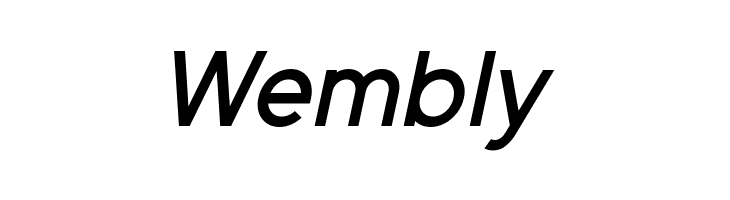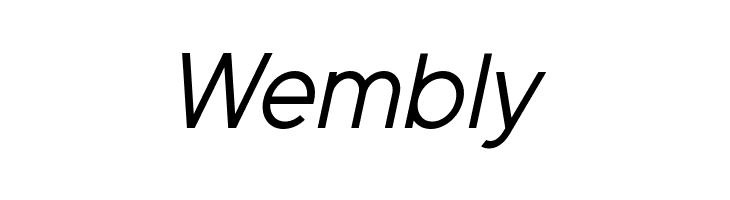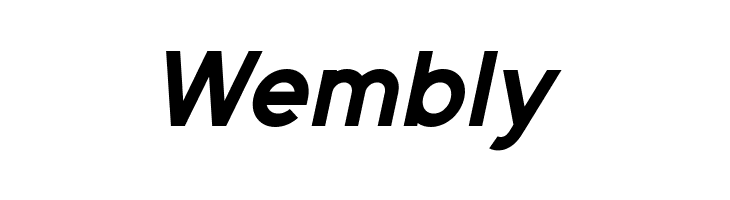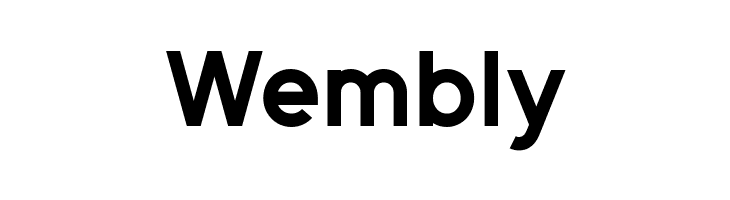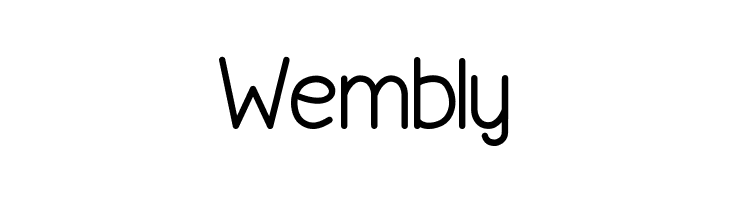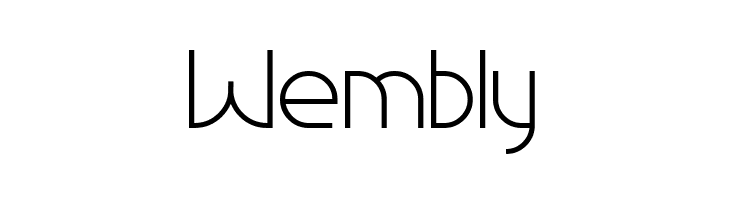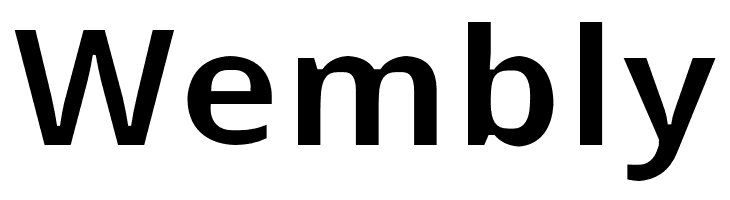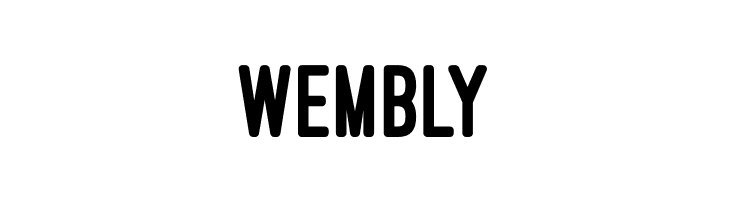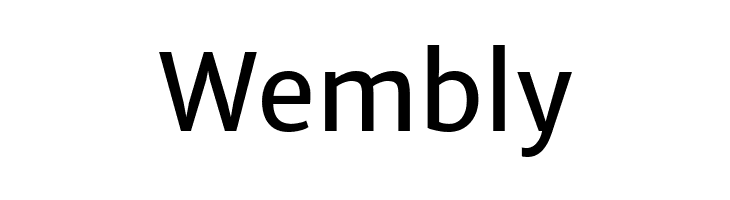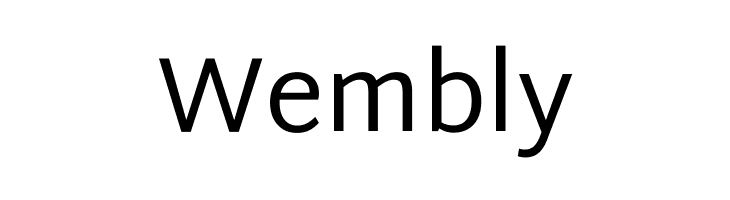
A modern, rounded sans-serif font with a friendly and approachable style.
A modern, light sans-serif font with geometric precision and minimalist design.
A modern, geometric sans-serif font with a clean and balanced design.
A modern, geometric sans-serif font with a bold and structured appearance.
A bold, modern sans-serif font with a geometric and uniform structure.
A modern, versatile sans-serif font with excellent readability.
A modern sans-serif font with clean lines and excellent readability.
A modern, clean sans-serif font with balanced spacing and consistent stroke width.
A clean, modern sans-serif font with excellent readability and versatility.
A modern, geometric sans-serif typeface with excellent readability.
A bold, geometric sans-serif font with strong, clean lines.
A modern, semi-bold sans-serif font with clean lines and excellent legibility.
A modern, thin sans-serif font with a clean and minimalist style.
A modern, semi-bold italic sans-serif font with a dynamic and clean appearance.
A modern, extra light sans-serif font with a clean and minimalist design.
A bold, sans-serif font with clean lines and modern aesthetics.
A modern, clean sans-serif typeface designed for clarity and readability.
A clean, modern sans-serif typeface with balanced proportions and excellent readability.
A modern, geometric sans-serif font with a touch of vintage elegance.
A clean, modern sans-serif font with balanced proportions and consistent stroke width.
A bold, modern sans-serif font with a clean and balanced design.
A modern, italic sans-serif font with a clean and dynamic style.
A bold, modern sans-serif font with excellent legibility and uniform stroke width.